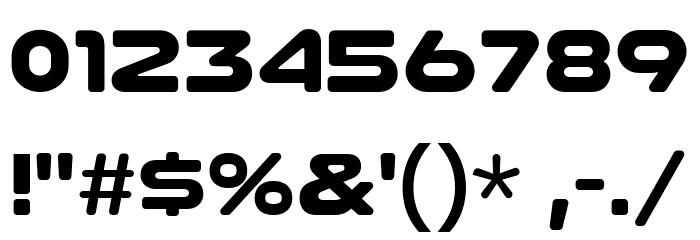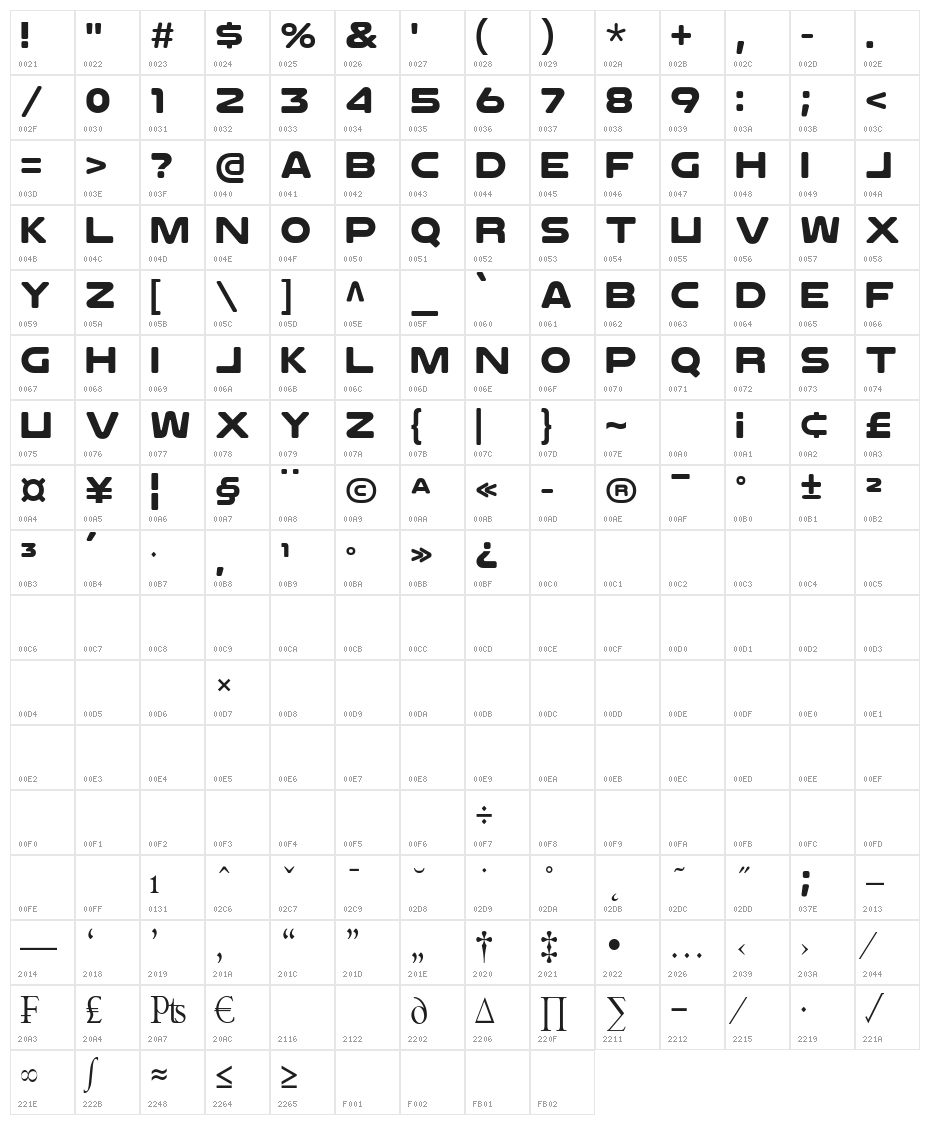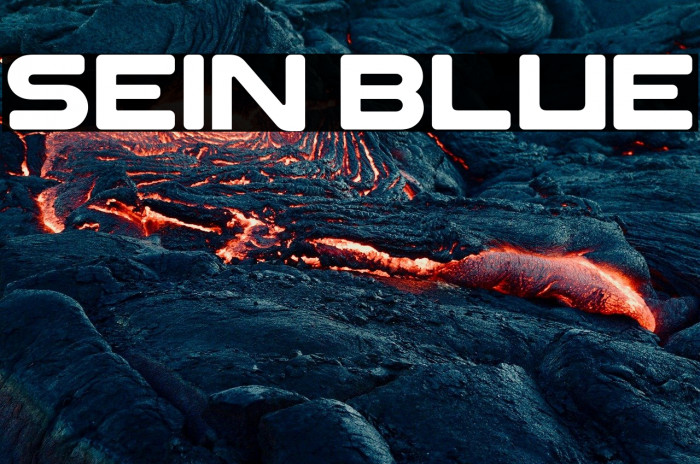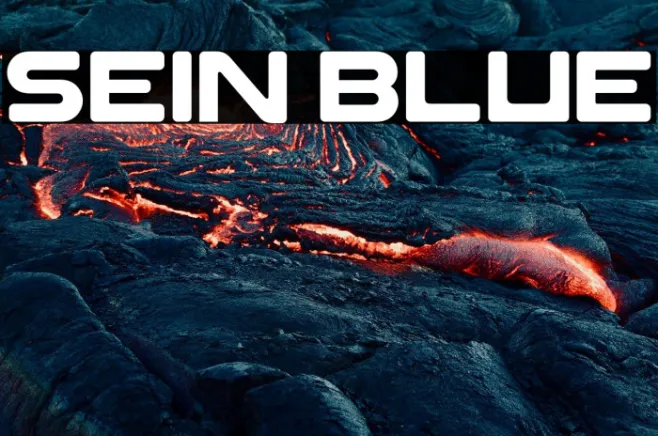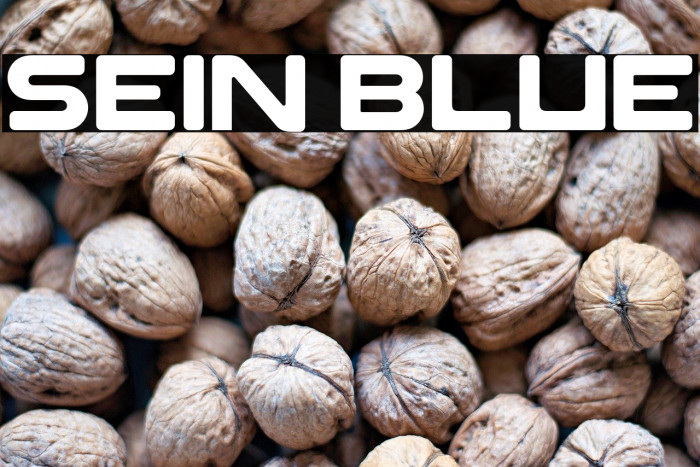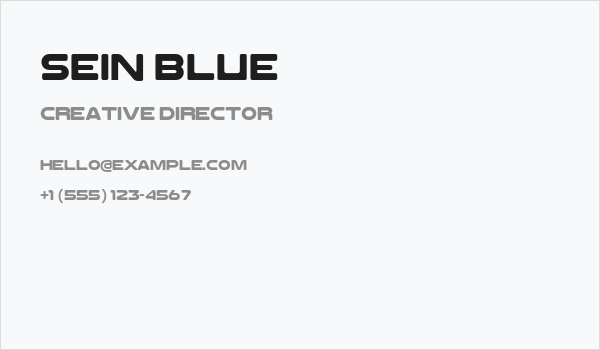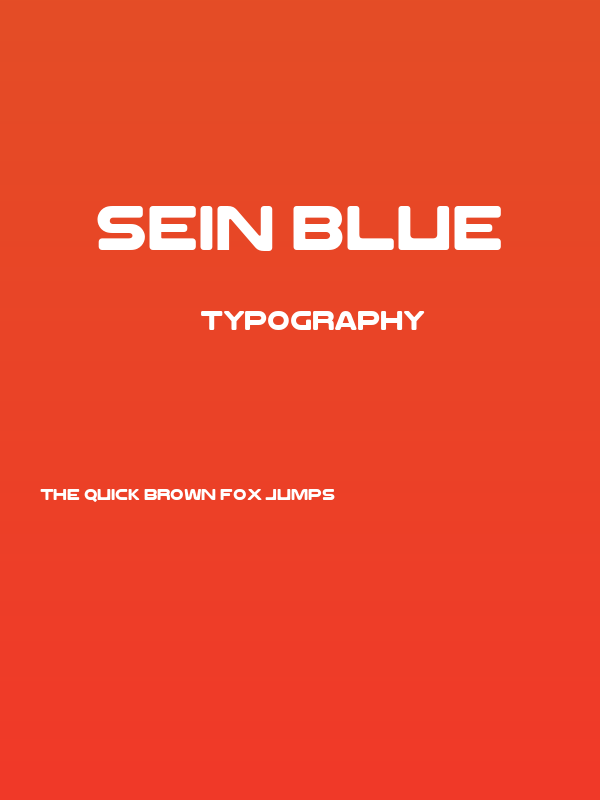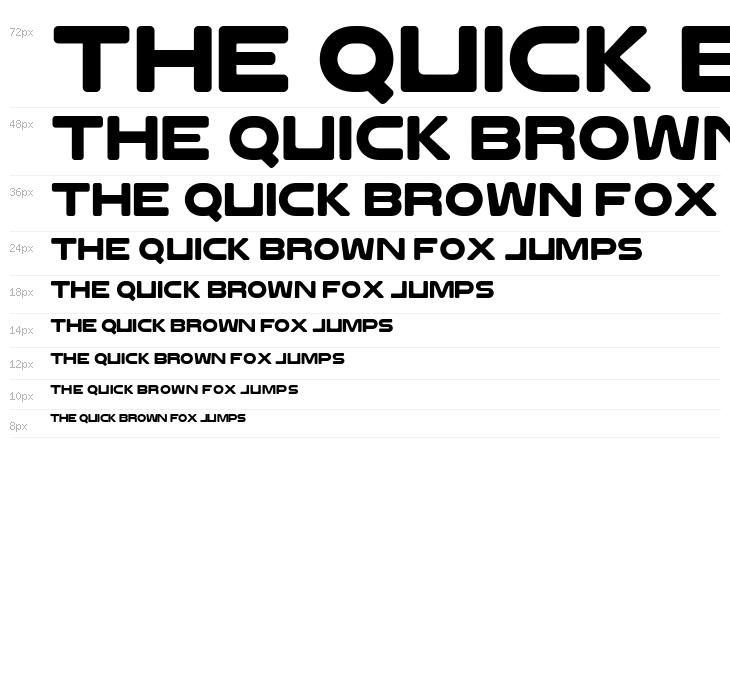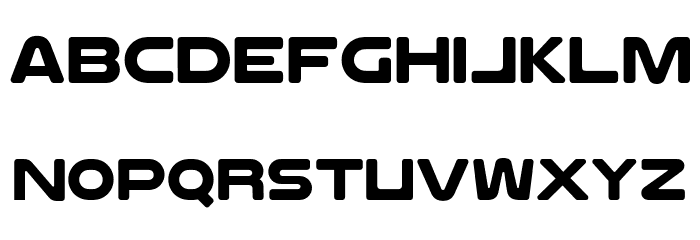
SEIN BLUE Font
SEIN BLUE Description
This font features a bold and modern design with rounded edges and a geometric structure. The characters are wide and evenly spaced, providing a clean and futuristic appearance. The uppercase and lowercase letters maintain a consistent style, with a slight emphasis on horizontal strokes. The numerals are equally bold, ensuring readability and uniformity across different uses. Special characters are designed to match the overall aesthetic, making this font versatile for various applications.
| Use Case | Headlines, Logos, Digital Interfaces |
| Proposed Projects | Ideal for technology branding, modern advertising, digital interfaces, and futuristic designs. |